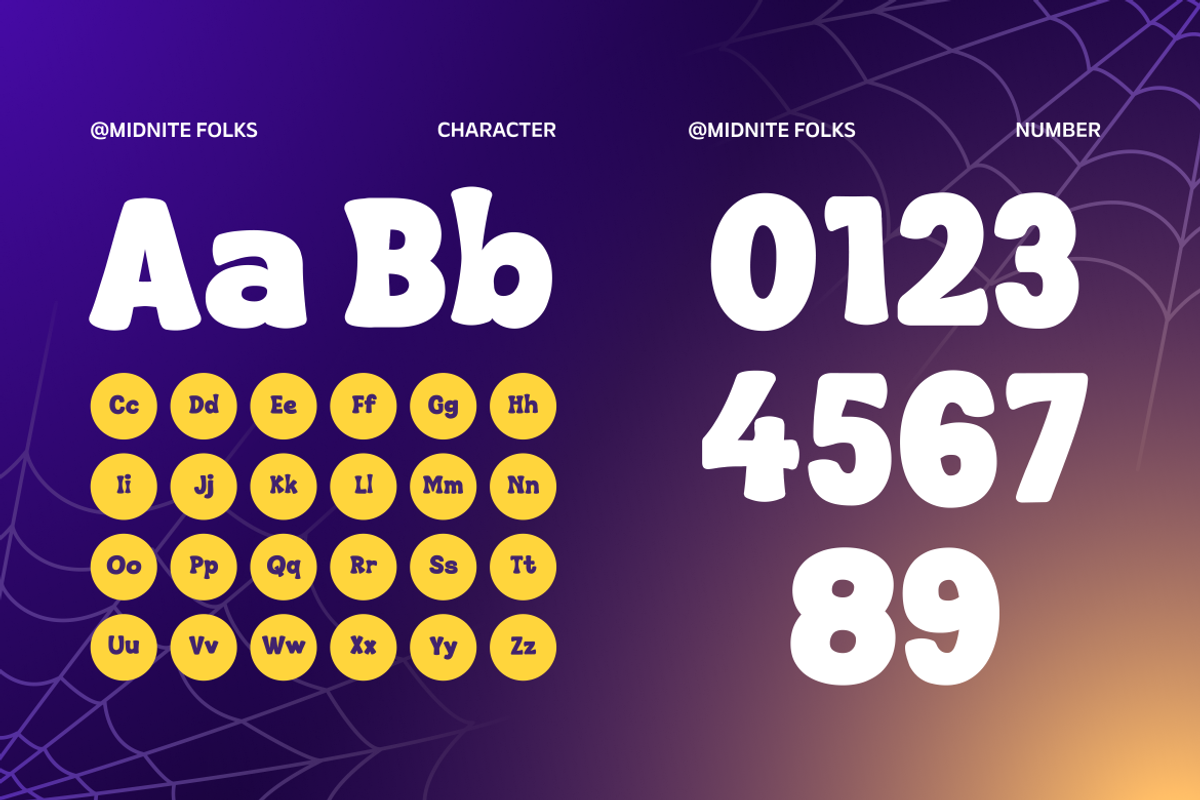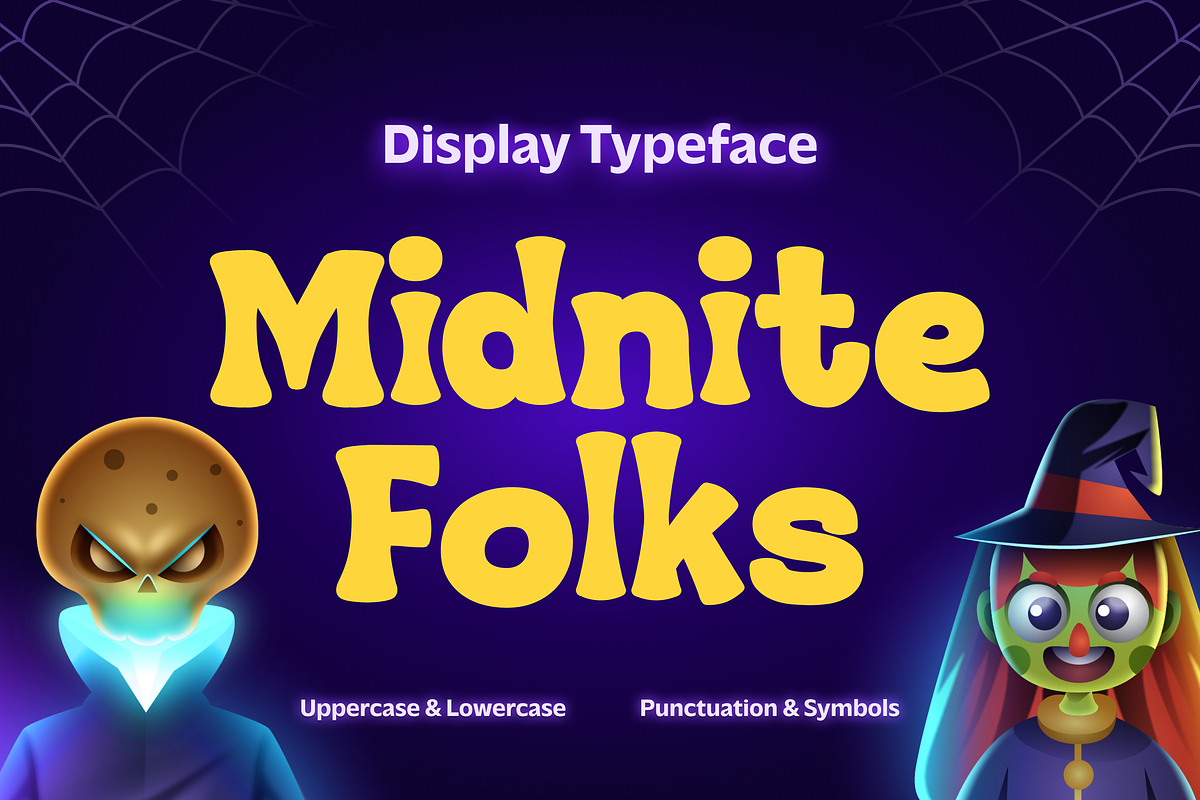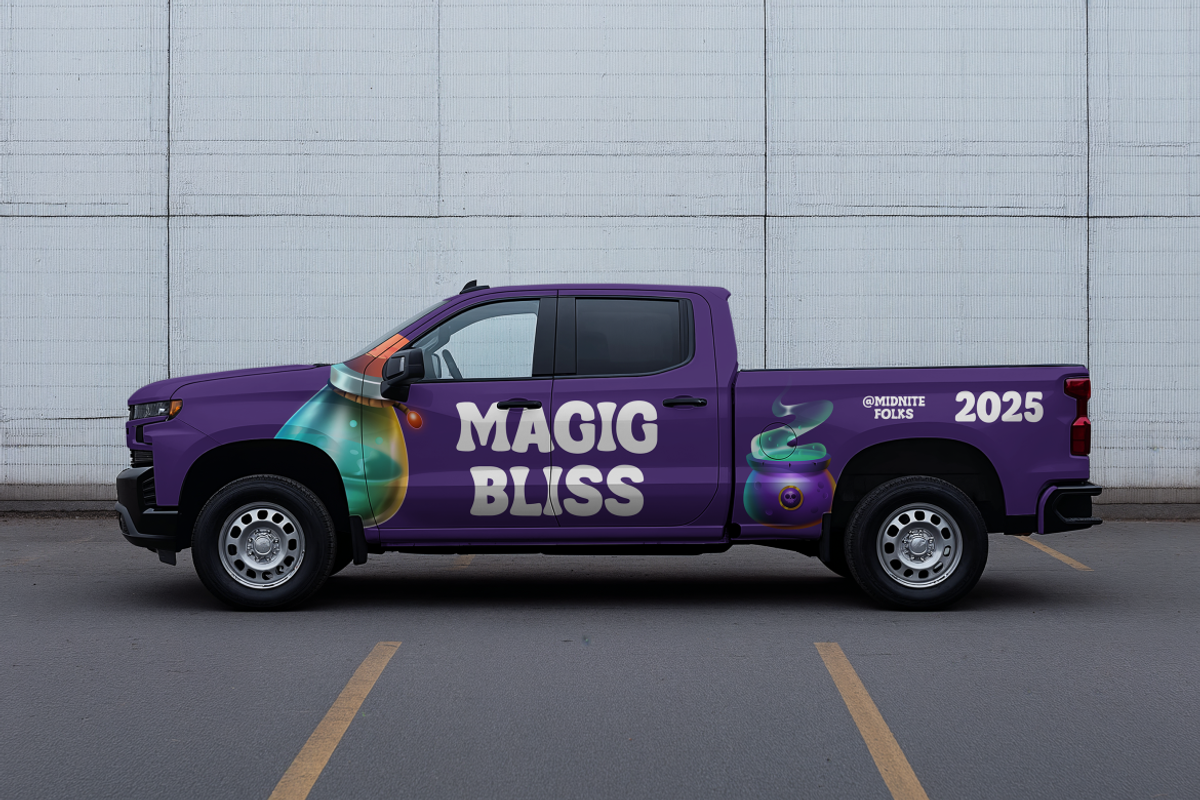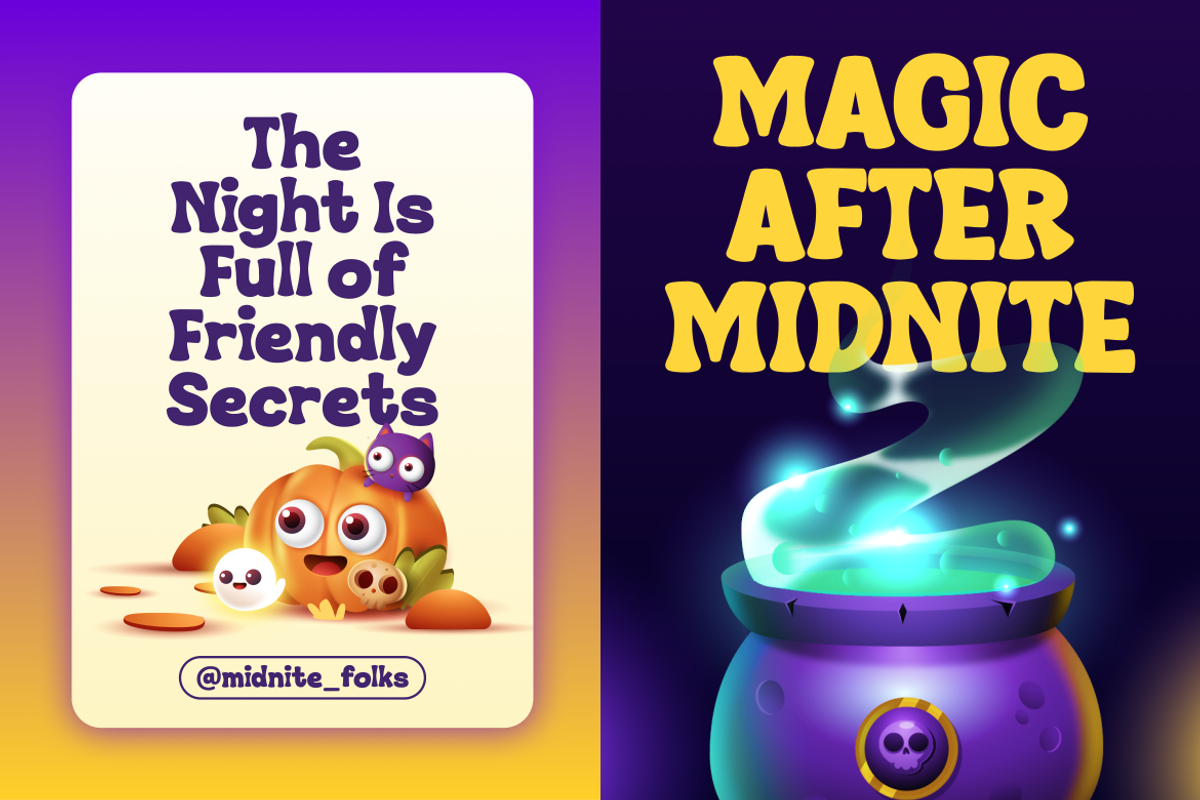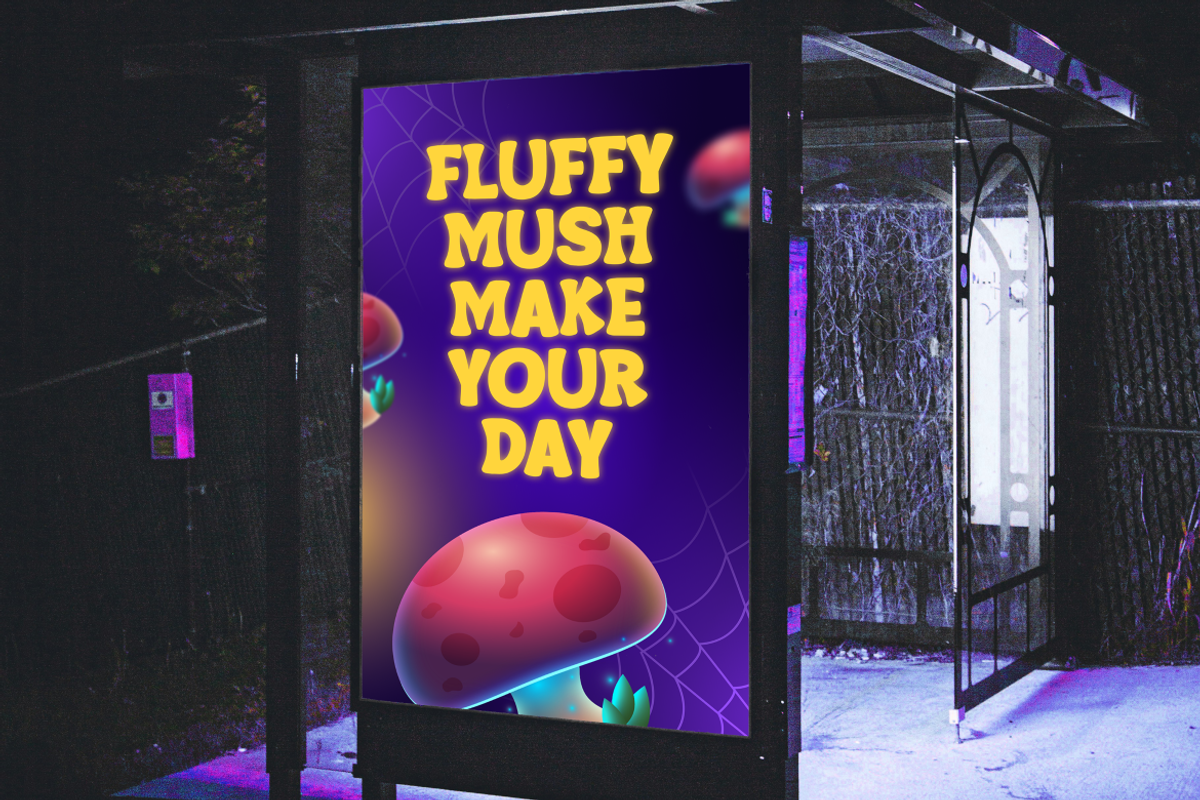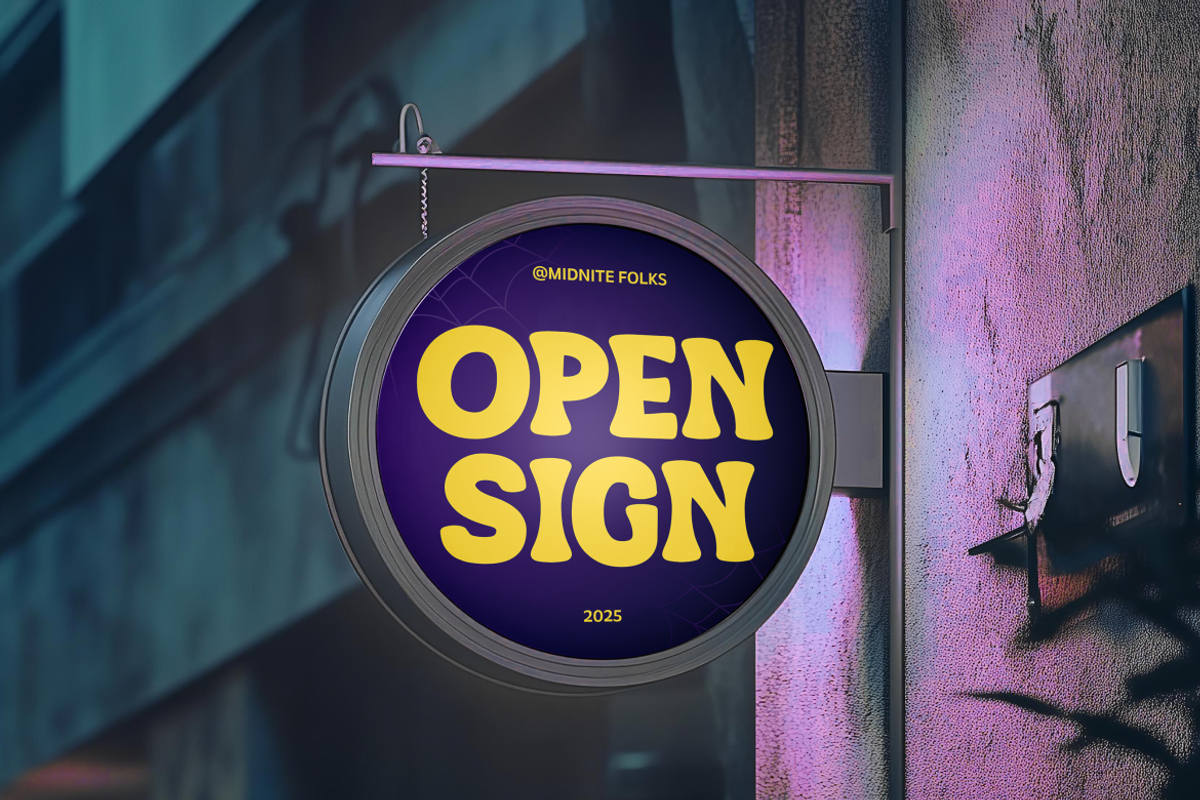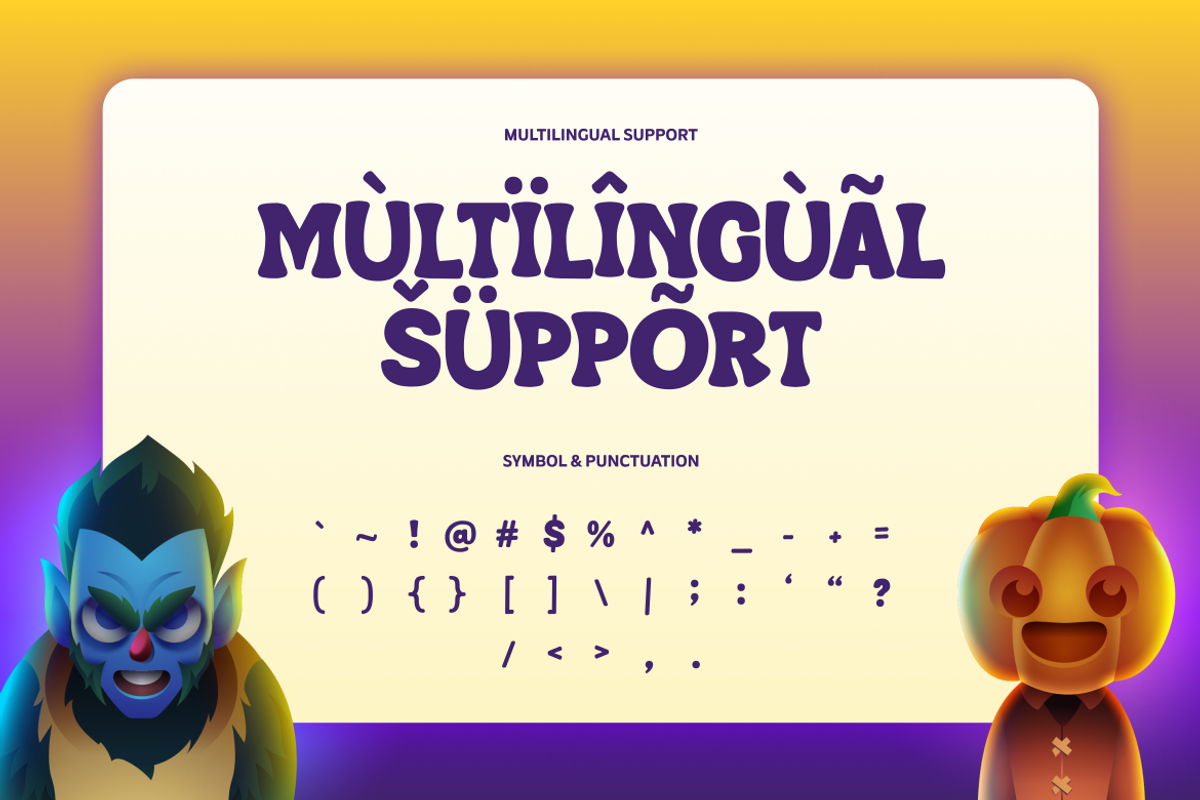
Midnite Folks - Display Font
Midnite Folks is a fun, bold display font with rounded shapes and a spooky personality. Perfect for Halloween designs, kids' projects, posters, branding, stickers, and social media graphics. Its smooth curves and bold weight make headlines fun, readable, and eye-catching in both digital and print designs.